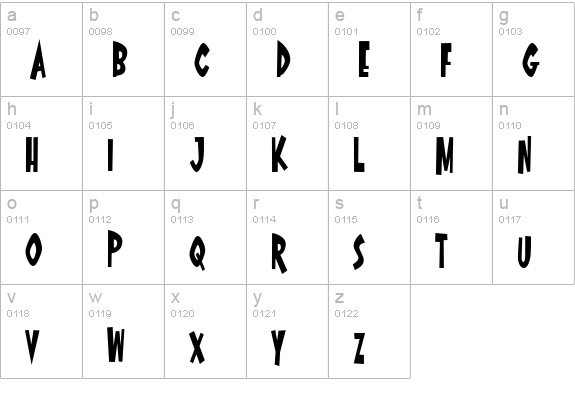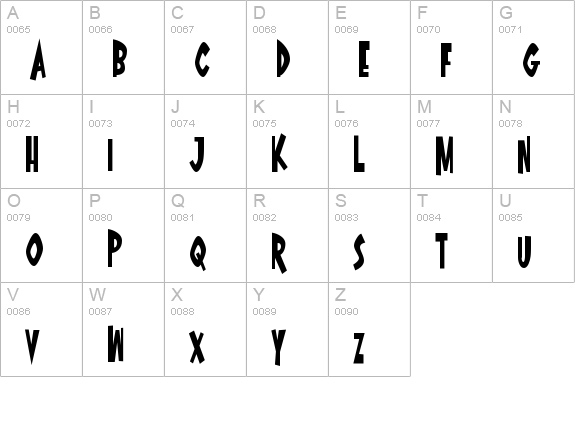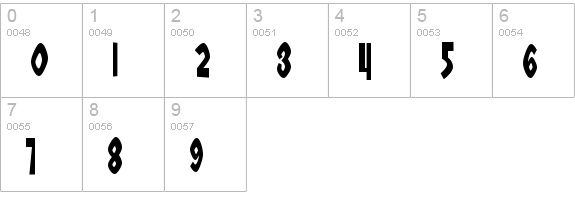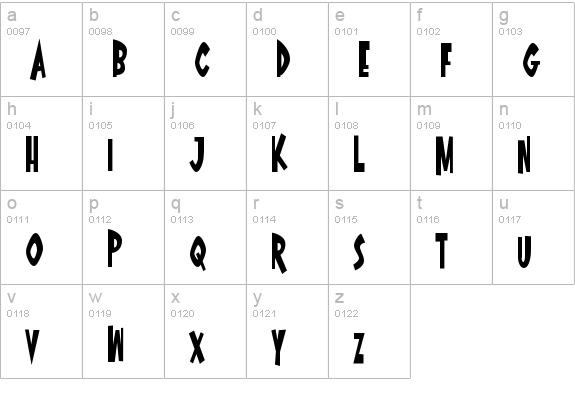
Oyster Bar BTN Cond Bold is a strong, high-contrast, condensed-width variant in the Oyster typeface family \xE2\x80\x94 well suited to headlines, attention-grabbing titles, and strong calls-to-action.
Oyster Bar BTN Cond Bold font is a striking and modern typeface that exudes sophistication and elegance. Its condensed bold style makes it perfect for headlines, titles, and branding projects that require a strong and impactful presence. The clean lines and sharp edges of this font give it a contemporary and sleek look that will elevate any design it is used in. The best part? Oyster Bar BTN Cond Bold font is available for free download at FontsMarket.com. Now you can add this versatile and stylish font to your collection without any cost. Whether you're working on a poster, logo, website, or any other project, Oyster Bar BTN Cond Bold font will help you make a statement and stand out from the crowd. Download it now and unleash your creativity with this beautiful and professional typeface.